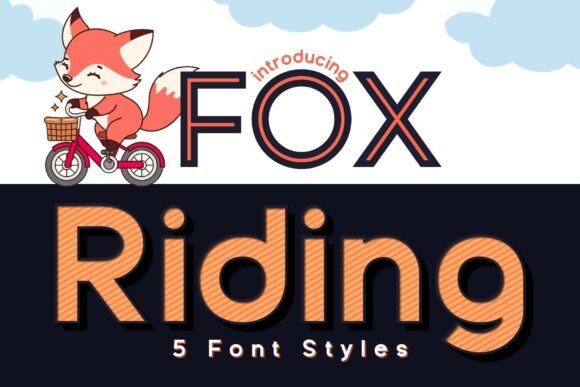
Introducing Fox Riding Font: A Charming and Inviting Cool Typeface
Are you looking for a unique and eye-catching font to elevate your design projects? Look no further than Fox Riding Font, a charming and inviting cool typeface created in 5 styles. This versatile font is perfect for use in a variety of applications, including publications, menus, logos, business cards, and even printed on t-shirts.
What Makes Fox Riding Font Stand Out?
Fox Riding Font is a standout in the world of typography, exuding uniqueness and character in every letter. Its charming and inviting design makes it perfect for designers looking to add a touch of personality to their work. Whether you’re working on a publication, menu, logo, or business card, Fox Riding Font is sure to make your design stand out from the crowd.
5 Styles to Suit Your Design Needs
Fox Riding Font is available in 5 styles, providing you with a range of options to suit your design needs. From bold and eye-catching to elegant and refined, there’s a style to suit every project. Whether you’re looking to make a statement or add a touch of sophistication, Fox Riding Font has got you covered.
Perfect for a Variety of Applications
Fox Riding Font is a versatile typeface that can be used in a variety of applications. Here are just a few ideas to get you started:
- Publications: Use Fox Riding Font to add a touch of personality to your magazine, newspaper, or book.
- Menus: Make your restaurant or cafe menu stand out with Fox Riding Font.
- Logos: Create a unique and eye-catching logo for your business with Fox Riding Font.
- Business Cards: Add a touch of sophistication to your business cards with Fox Riding Font.
- T-Shirts: Print Fox Riding Font on t-shirts for a unique and eye-catching design.
Why Choose Fox Riding Font?
There are many reasons why Fox Riding Font is a valuable addition to your font library. Here are just a few:
- Unique and eye-catching design
- Available in 5 styles to suit your design needs
- Versatile and can be used in a variety of applications
- Perfect for designers looking to add a touch of personality to their work
- High-quality font that will elevate your design projects
Tips for Using Fox Riding Font
Here are a few tips for using Fox Riding Font in your design projects:
- Experiment with different styles: Fox Riding Font is available in 5 styles, so don’t be afraid to experiment and find the one that works best for your project.
- Use it sparingly: While Fox Riding Font is a beautiful typeface, it can be overwhelming if used too much. Use it sparingly to add a touch of personality to your design.
- Pair it with other fonts: Fox Riding Font pairs well with other fonts, so don’t be afraid to experiment with different combinations.
In conclusion, Fox Riding Font is a charming and inviting cool typeface that is perfect for designers looking to add a touch of personality to their work. With its unique and eye-catching design, versatility, and high-quality construction, Fox Riding Font is a valuable addition to any font library.
Here are a few frequently asked questions about Fox Riding Font:
- What type of font is Fox Riding Font?
- How many styles is Fox Riding Font available in?
- What applications can I use Fox Riding Font for?
- Is Fox Riding Font a high-quality font?
Here are the answers:
- Fox Riding Font is a charming and inviting cool typeface.
- Fox Riding Font is available in 5 styles.
- You can use Fox Riding Font for publications, menus, logos, business cards, and even printed on t-shirts.
- Yes, Fox Riding Font is a high-quality font that will elevate your design projects.